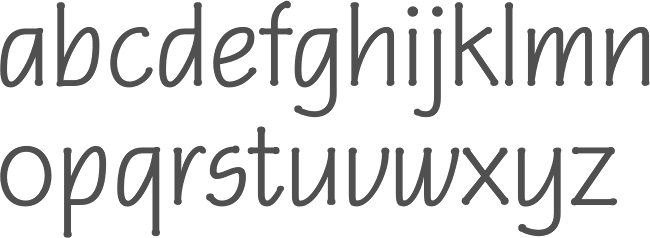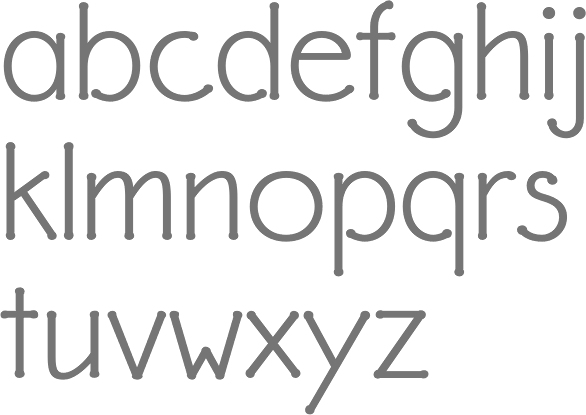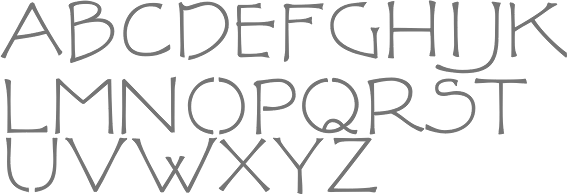
Frank Lloyd Wright Fonts Free. P22 flw midway contains 3 styles and family package options. P22 flw exhibition contains 4 styles and family package options.
Known for architecture, he also designed lettering and embellishments for his building projects. P22 flw exhibition font download. This type of architectural lettering is a bit more casual than standard lettering found on most blueprints.
Fonts By Frank Lloyd Wright:
Every font is free to download! Opentype, truetype, postscript available for mac and pc. This font set is the second in a series from p22 type foundry based on the lettering styles of frank lloyd wright.
Frank lloyd wright, david siegel and richard kegler. Download p22 eaglefeather bold font with bold style. P22 flw terracotta font frank lloyd wright.
P22 Flw Exhibition Was Designed By Richard Kegler, Frank Lloyd Wright, Christina Torre And Published By P22.
For example, swiftw5 created the typeface hendrikus wijdeveld (2010), based on a hendrikus wijdeveld poster entitled architecture exhibition / frank lloyd wright from 1931. P22 flw midway contains 3 styles and family package options. This product has been developed in cooperation with the frank lloyd wright foundation (taliesin west, scottsdale, arizona).